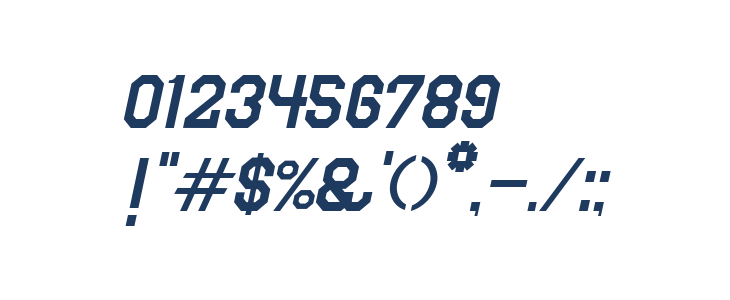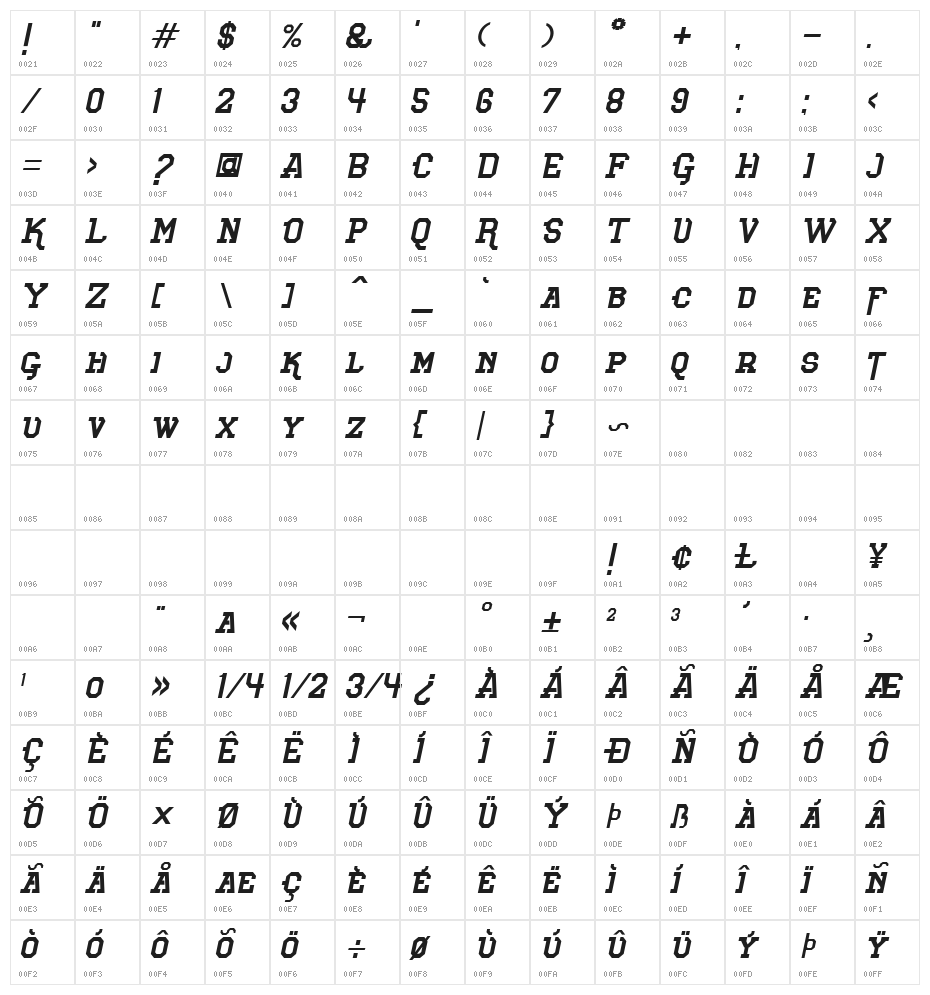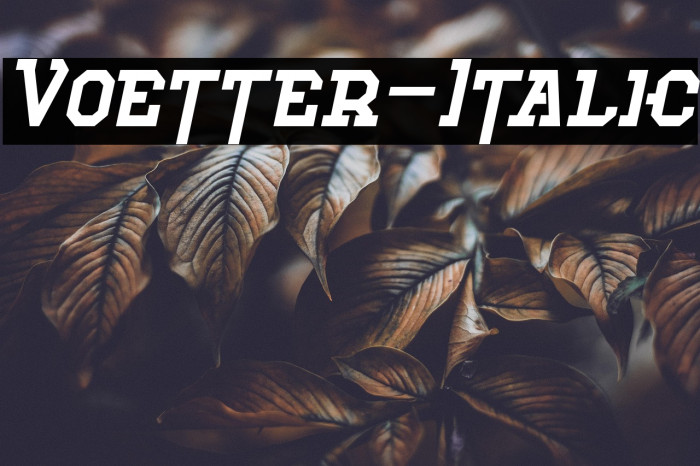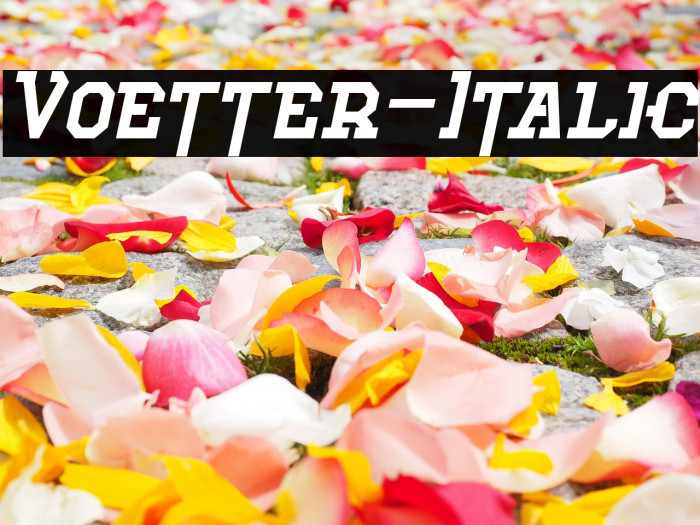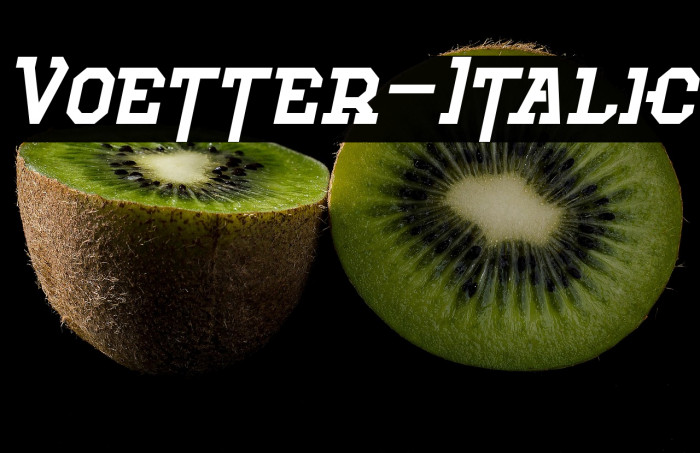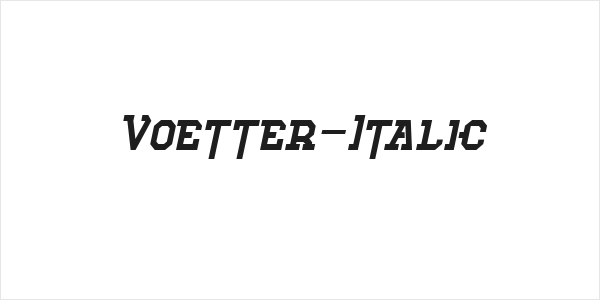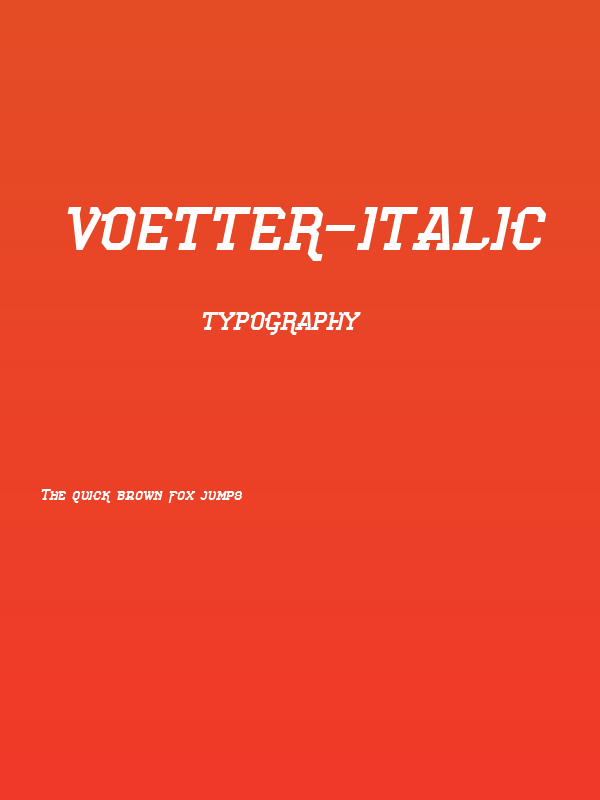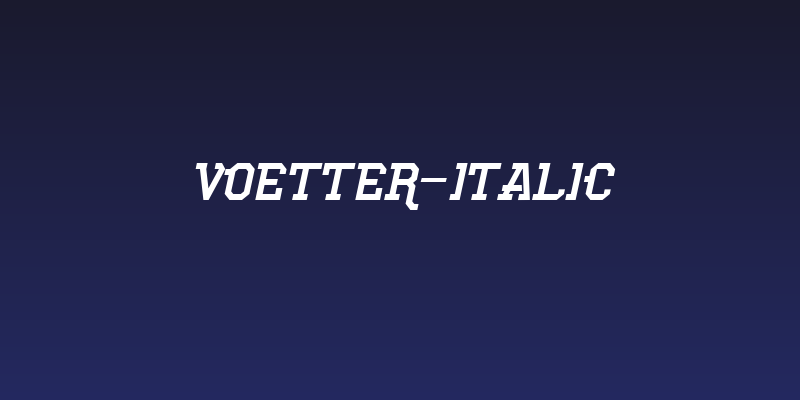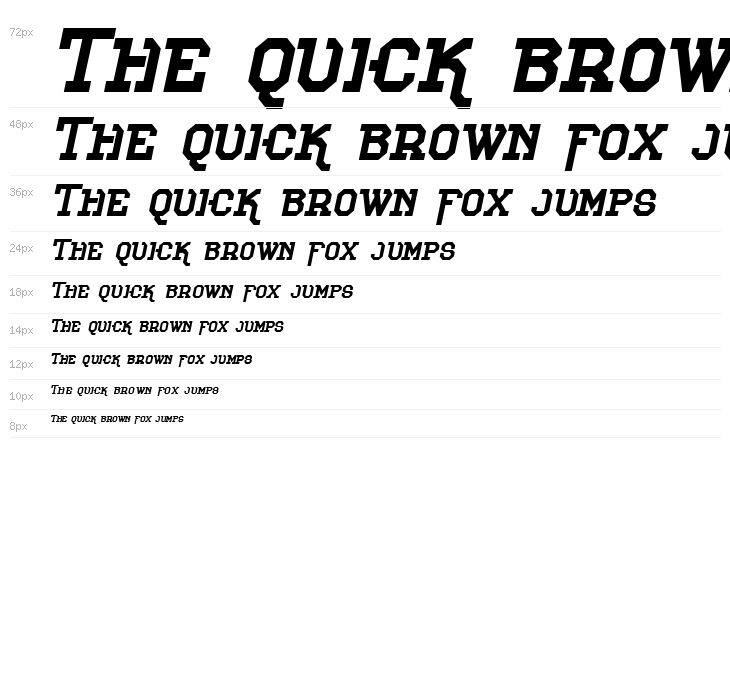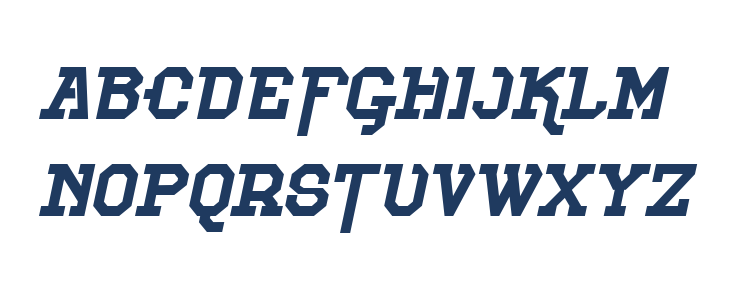
This font exhibits a bold and dynamic style with a distinct italic slant, giving it a sense of movement and energy. The characters are angular and geometric, featuring sharp edges and a slightly condensed form. The uppercase and lowercase letters maintain a consistent style, with the uppercase being more prominent and the lowercase slightly more compact. The numerals are bold and align well with the overall design, ensuring readability. Special characters are crafted with the same attention to detail, making them suitable for various design contexts. The font's unique style makes it stand out, while its boldness ensures it captures attention effectively.